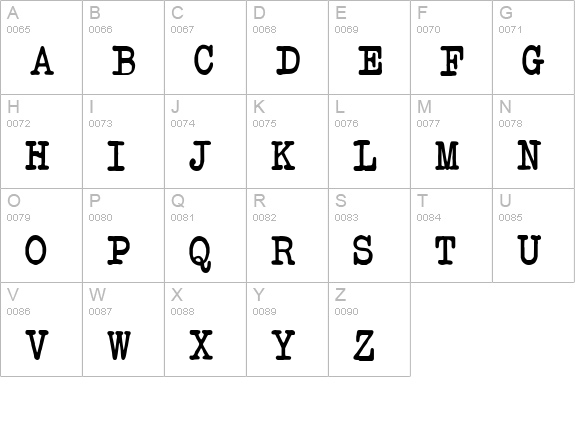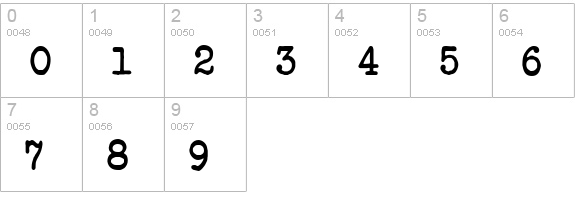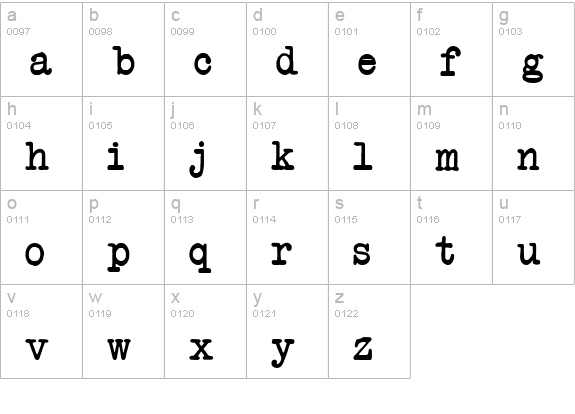
Another Typewriter Font Details
Another Typewriter font is a stylish and versatile typeface that combines the classic charm of a traditional typewriter with a modern twist. With its clean lines and distinctive character shapes, this font is perfect for adding a touch of vintage flair to your designs. Its timeless appeal makes it suitable for a wide range of projects, from branding and advertising to editorial design and more. One of the best things about Another Typewriter font is that it is completely free to download. You can easily access this font at FontsMarket.com, where you can find a variety of other high-quality fonts to enhance your creative projects. So whether you're working on a retro-inspired poster, a sleek website design, or anything in between, Another Typewriter font is sure to add a touch of elegance and sophistication to your work. Download it today and start bringing your designs to life with this unique and eye-catching typeface.